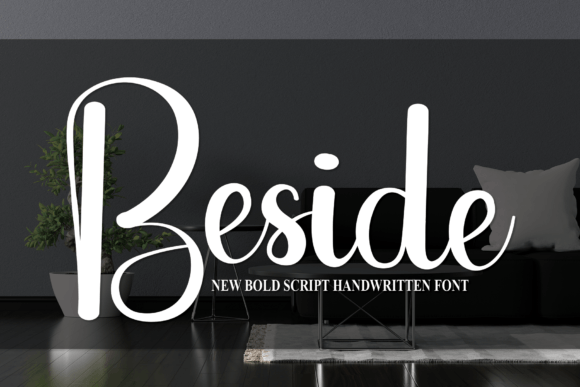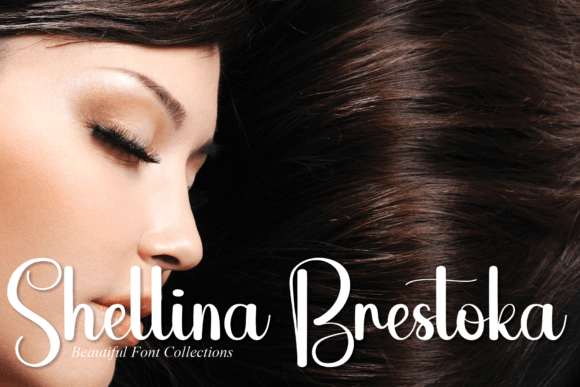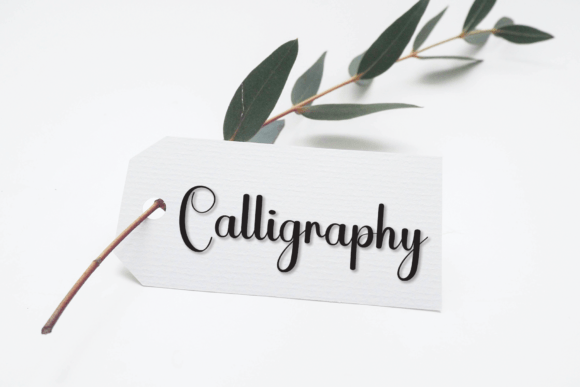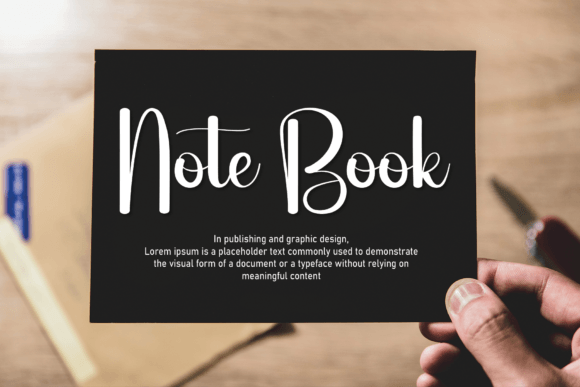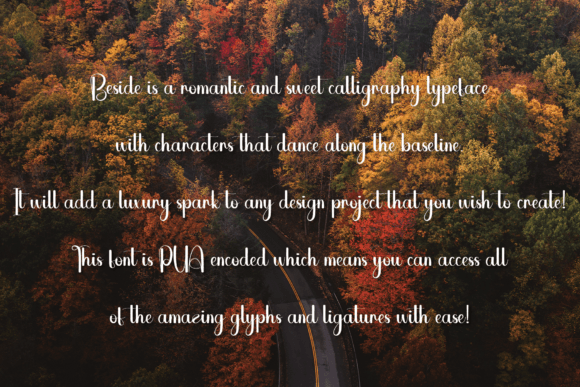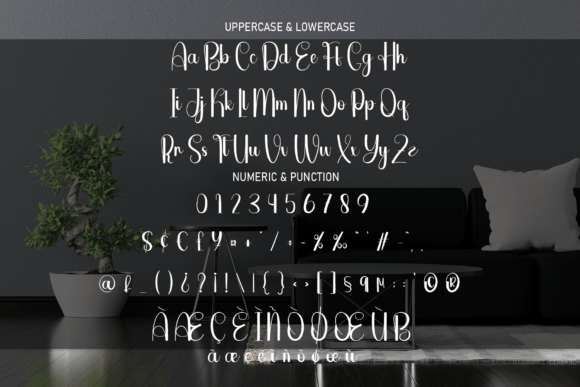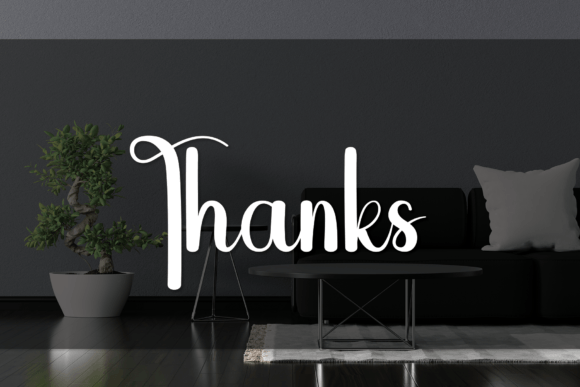
Beside Font
A Flowing and Elegant Handwritten Script
Beside is a graceful handwritten font created to bring sophistication and beauty to any design project. With smooth curves and a flowing style, it feels both timeless and modern. Whether you’re designing branding, event stationery, or social media content, Beside adds a polished, personal touch to your work.
Its clean look makes it versatile enough for many uses, from formal to casual designs.
Beside is a font you’ll reach for time and time again. It’s perfect for wedding invitations, menus, and thank you cards. The elegant script creates a romantic mood that makes every detail feel extra special.
For branding, Beside works beautifully on logos, packaging, and business cards. The handwritten style helps your brand look premium and approachable, standing out in a crowded market.
This font is also great for quotes, greeting cards, and personal gifts. Its authentic feel brings warmth to any message.
On social media, Beside ensures your posts look stylish and consistent. Whether you’re announcing a product launch or sharing a story, this font keeps your visuals cohesive and engaging.
Despite its flowing lines, Beside remains clear and legible at any size. Balanced spacing and smooth letter connections ensure your text always looks neat.
For a professional, modern look, pair Beside with a clean sans-serif font. Use Beside for titles and main details, and the sans-serif for supporting text. This combination creates a polished design that feels fresh and inviting.
To make Beside shine, use soft colors and minimalist backgrounds. Shades like ivory, pale pink, or warm gray allow the script’s details to stand out without distractions.
When designing invitations or branding materials, add subtle illustrations or delicate borders to match the handwritten feel. Keep layouts simple so the font remains the focal point.
On social media, embrace white space so your text stays clear and your design looks modern and uncluttered.
Think about the mood you want to share. Beside is perfect for projects that should feel elegant, timeless, and warm.
Beside isn’t just another script font—it’s a creative asset that elevates your work with its refined, flowing style. From wedding stationery to business branding, this font adapts to any project effortlessly.
Adding Beside to your font collection ensures you always have a stylish, versatile option ready for any occasion. Whether you’re designing logos, social content, or personal keepsakes, this font adds a touch of sophistication that feels classic and unique.